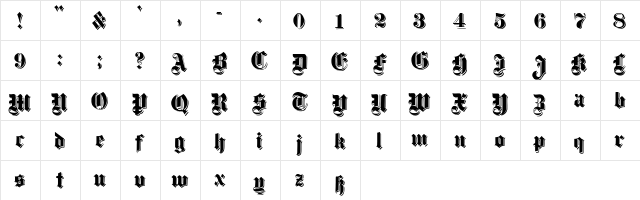
Dampfplatz Shadow Black
Design Context for Dampfplatz Shadow Typeface
Dampfplatz Shadow is built around its visual character rather than neutral utility — its distinctive forms are designed to make an impression at display sizes.
Font Pairing: Pair with a clean neutral sans-serif for body copy to let Dampfplatz Shadow's character lead without overwhelming the composition.
Pro Tip: Use Dampfplatz Shadow exclusively at display sizes — it was designed to be seen, not read at length. Let a neutral companion handle body copy.